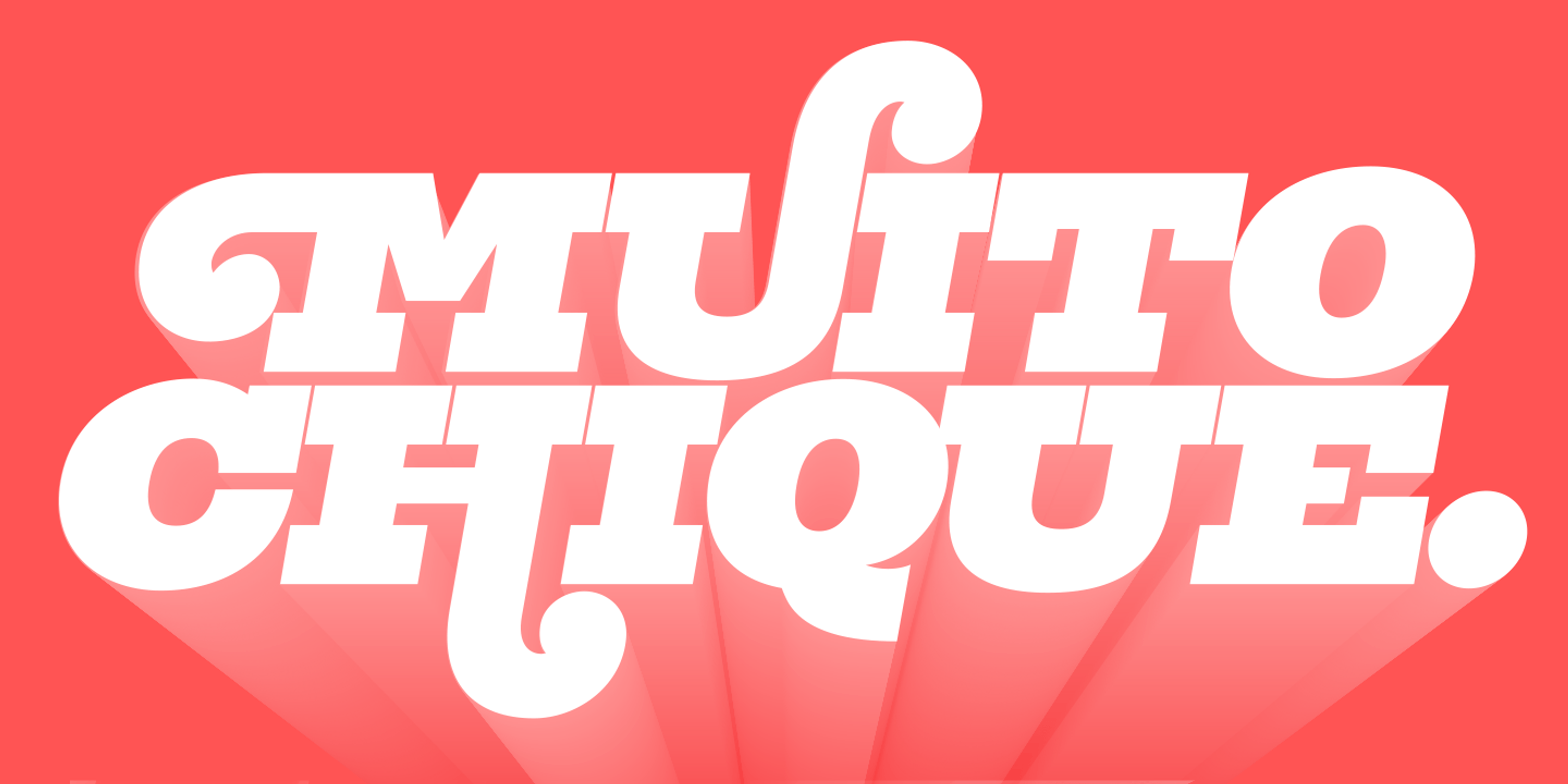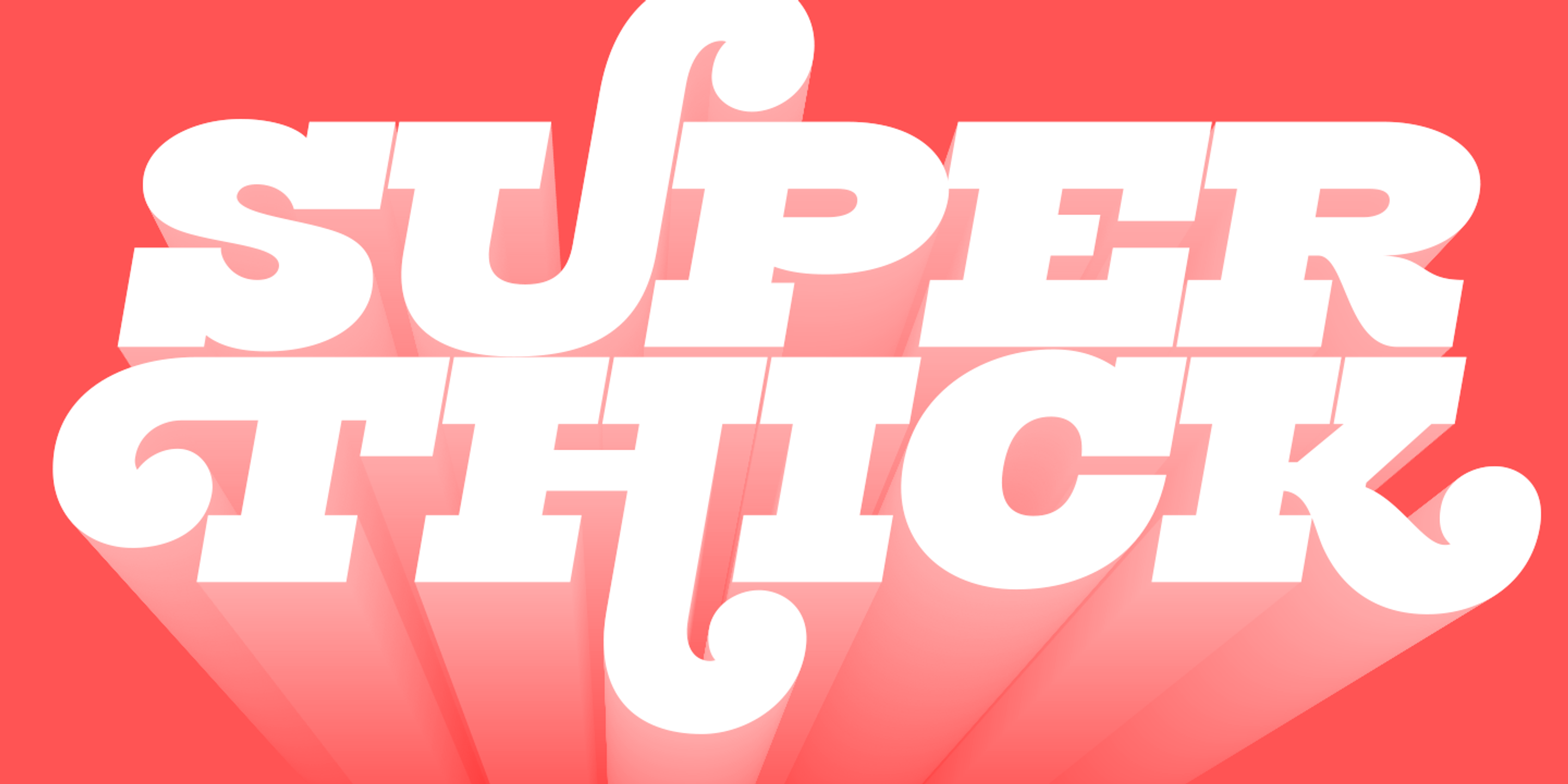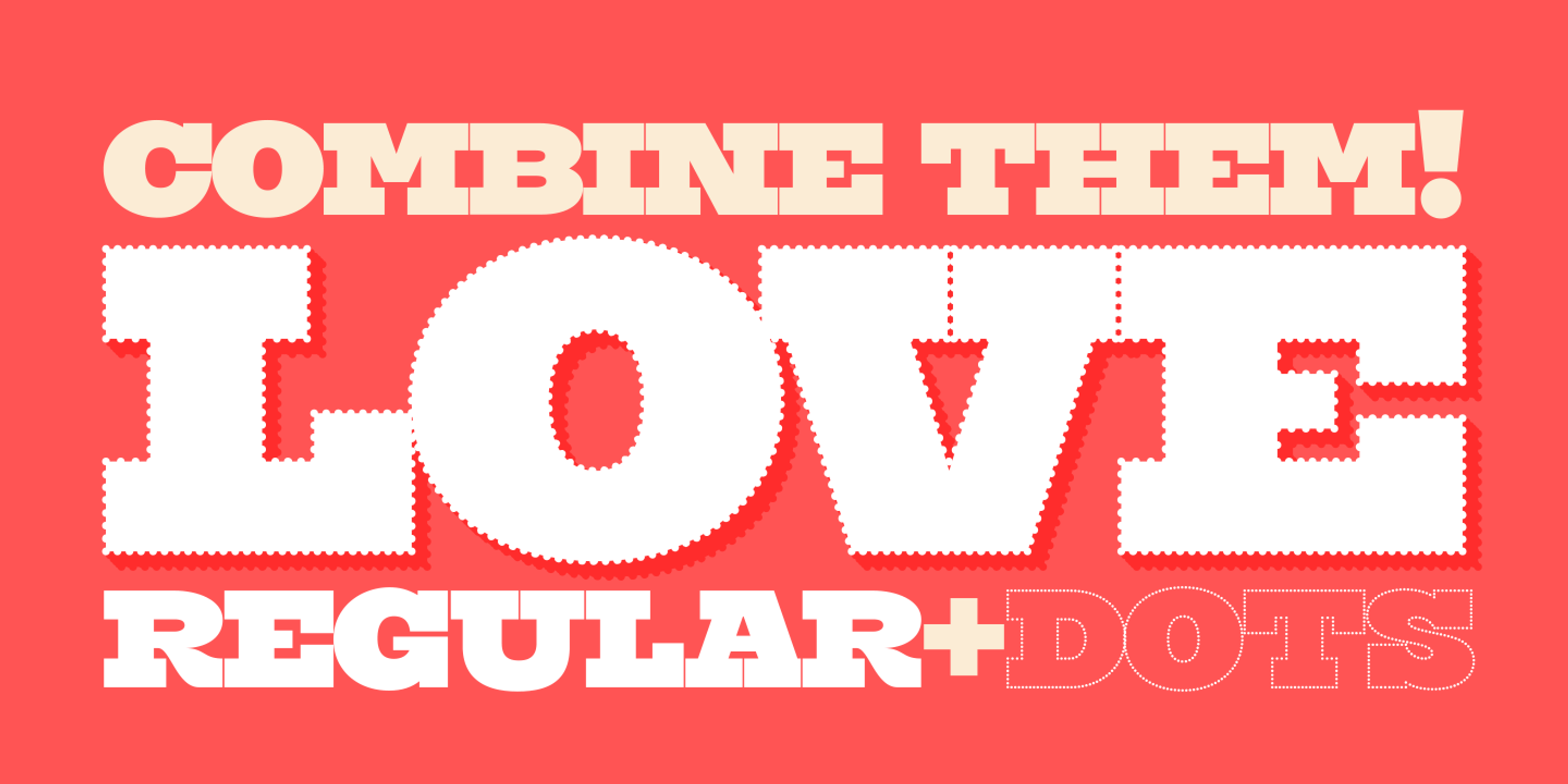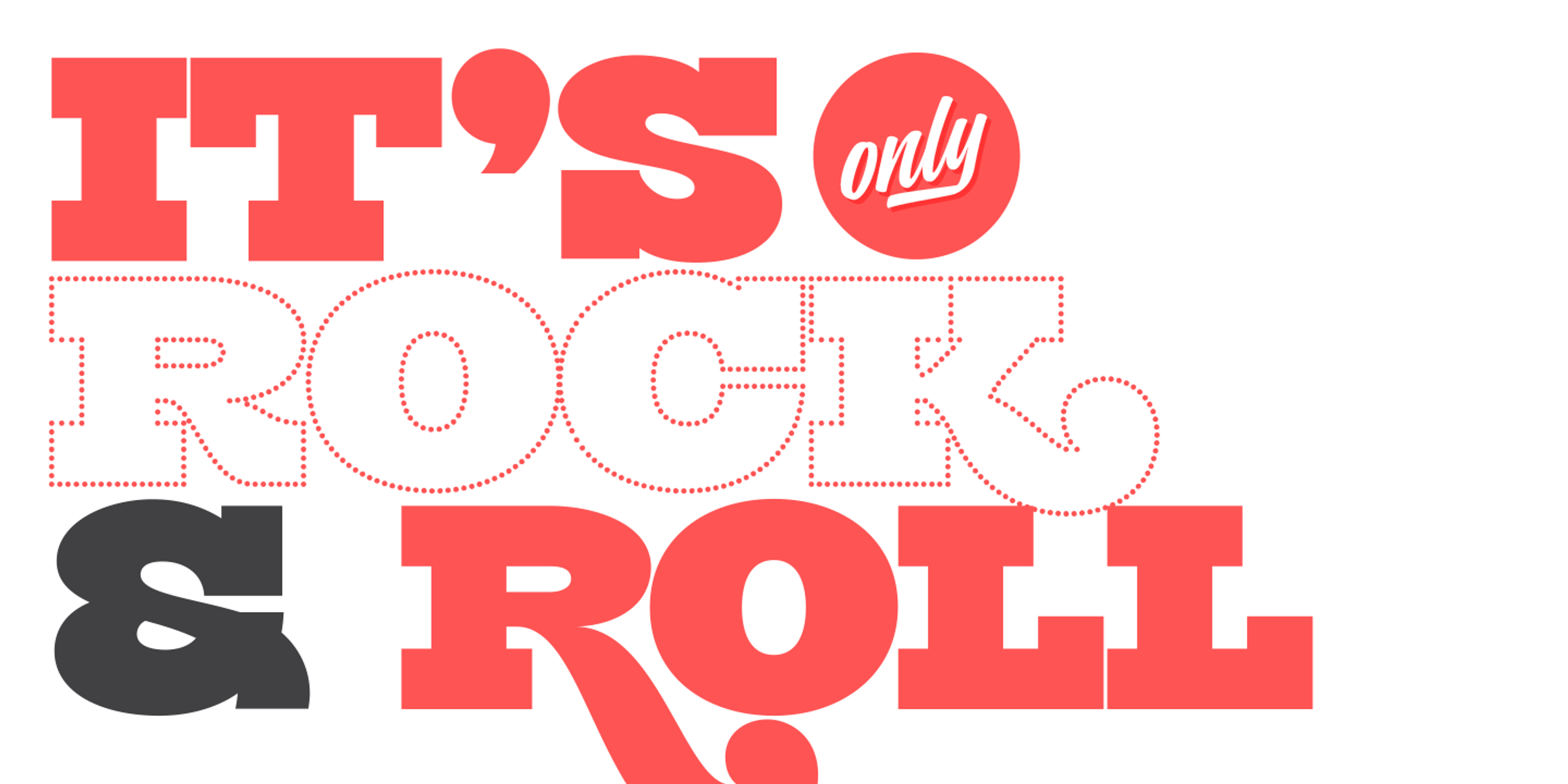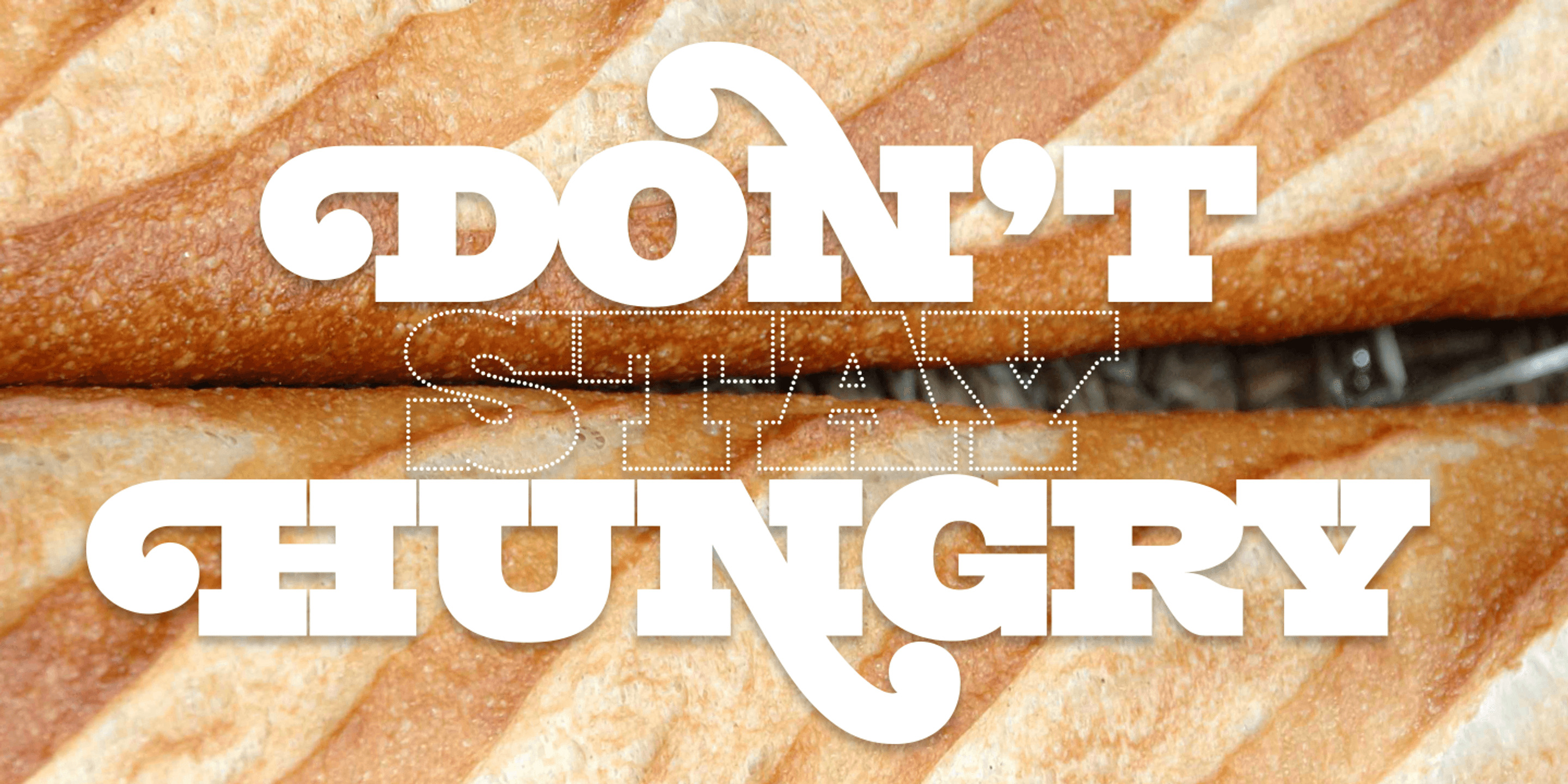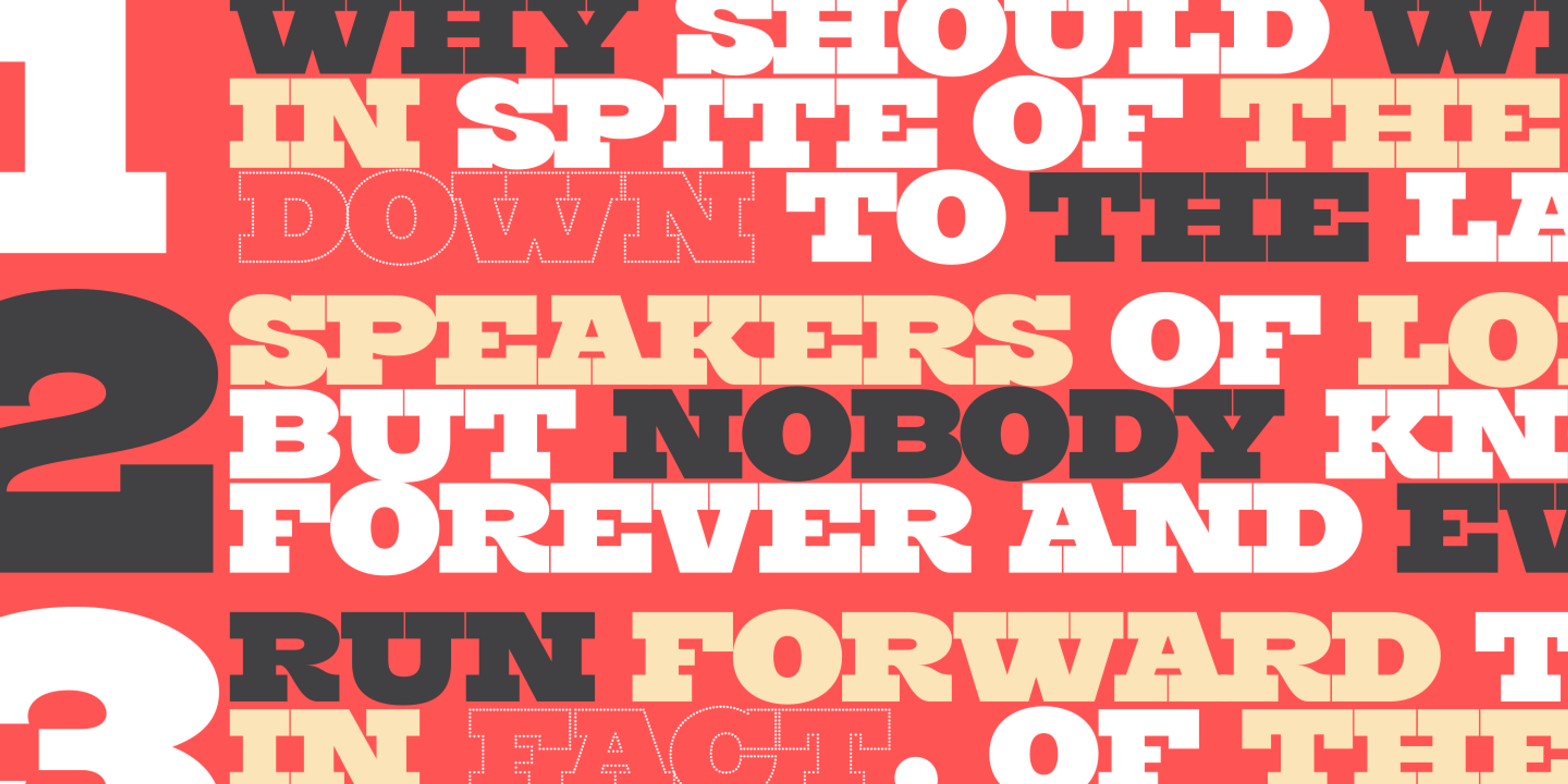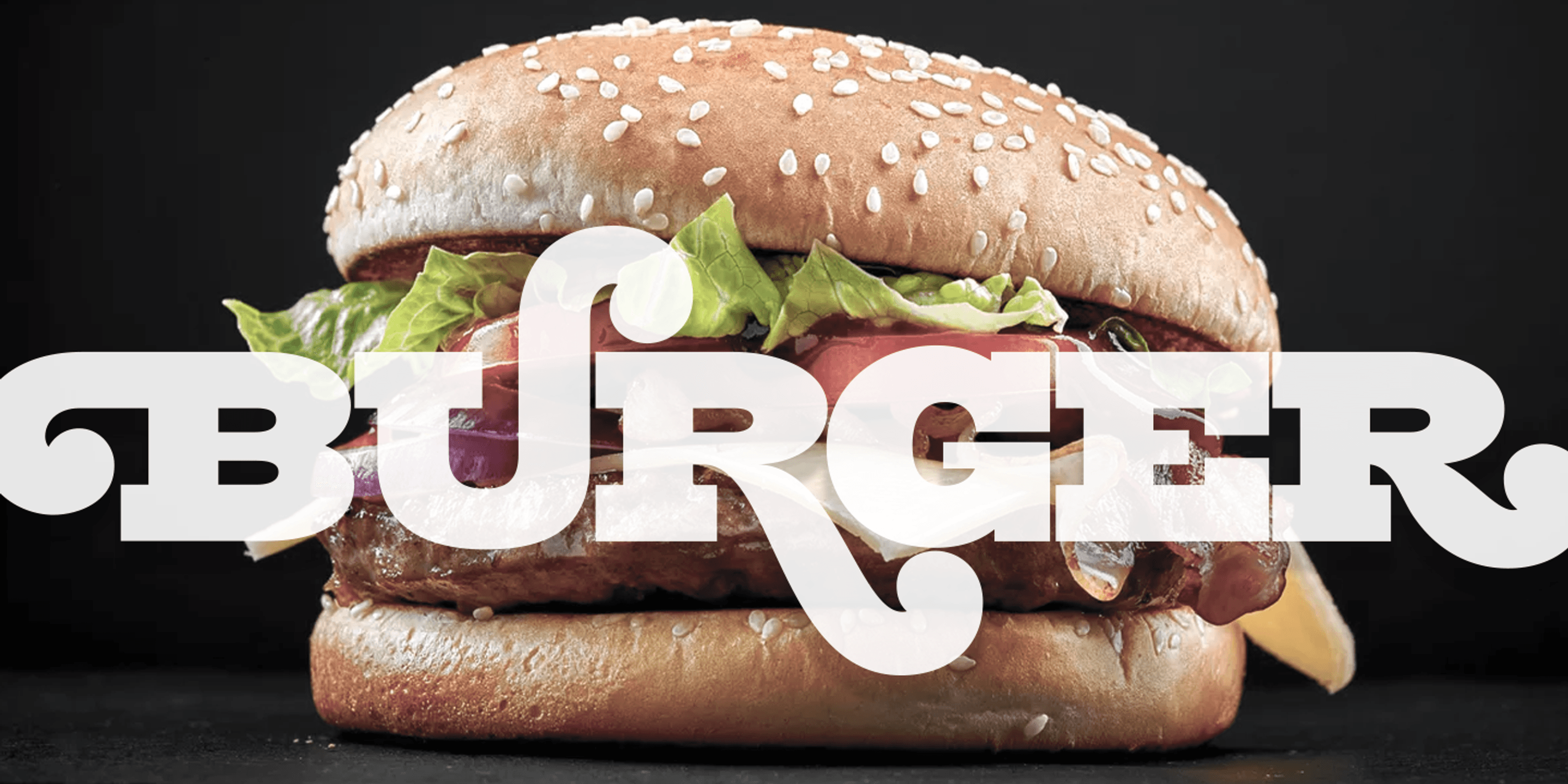
Burger font by Sproviero Type — the words “MUITO CHIQUE.” in a bold, upright, swash slab serif with long drop shadows
Burger font by Sproviero Type — the words “SUPER THICK” in a bold, upright slab serif with a swash on the S and K, and a long shadow effect
Burger font by Sproviero Type — the words “COMBINE THEM!” in upright slab serif, “LOVE” in large, white, stamp-edged letters, and “REGULAR + DOTS” below, with “DOTS” formed by dotted outlines.
Burger font by Sproviero Type — the words “IT’S” and "& ROLL” in solid red slab serif letters, “ROCK” in dotted outline letters, and “only” in a small white script inside a red circle
Burger font by Sproviero Type — the words “DON’T STAY HUNGRY” in white slab serif letters with swashes, with “STAY” as a dotted outline, over a background of two baguettes.
Burger font by Sproviero Type — the words “WHY SHOULD WE”, “IN SPITE OF THE”, “DOWN TO THE LA”, “SPEAKERS OF LO”, “BUT NOBODY KN”, “FOREVER AND EV”, “RUN FORWARD T”, and “IN FACT, OF THE” in a mix of solid and dotted slab serif styles, with large numbers 1, 2, and 3 on the left
Burger font by Sproviero Type — the word BURGER in white, bold, swashy slab-serif letters over a close-up photo of a hamburger.
Burger font by Sproviero Type — the words “SUPER BURGER FEST” in a swashy slab serif, stacked in three lines.
Burger Dots
Burger Regular
Burger Regular Italic
About the font
Burger Details
Burger is a bold slab serif family. Inspired by the fast food world, Max aimed to achieve a head-turning all-caps typeface. Since it’s not common to see slabs with swashes, this project was an experiment with intriguing results. Generally seen as more formal, this juicy char-grilled slab is playful and unique. All the glyphs, including the swashy ones, had to look like compact blocks to maintain an even weight. Comfort food deserves better fonts, right?! Designers! Come on, give Burger a try!
OpenType Features
• Common Ligatures
• Discretionary Ligatures
• Fractions
• Stylistic Alternates
• Stylistic Sets
• Swashes